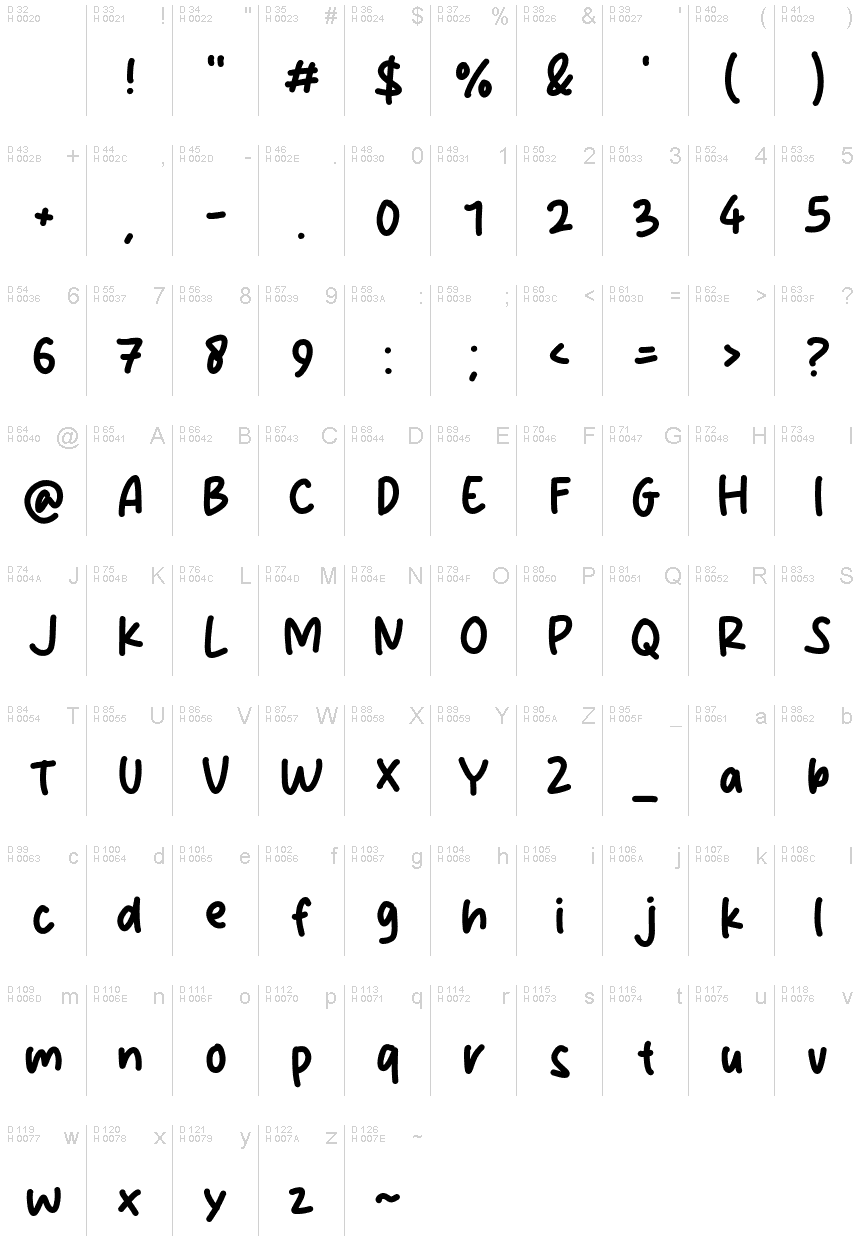
Cheese Cake, the delightful creation by MJType, is a captivating handwritten font that adds a touch of whimsy and charm to any project.
Its playful curves and smooth strokes make it ideal for children's books, creating an enchanting reading experience. For food blogs or menus, Cheese Cake brings a delectable flair to descriptions and titles, enticing readers with its deliciously adorable aesthetic. This versatile font is also perfect for greeting cards, adding a personal and heartfelt touch to messages.
With Cheese Cake, let your imagination run wild and infuse your projects with delightful creativity.